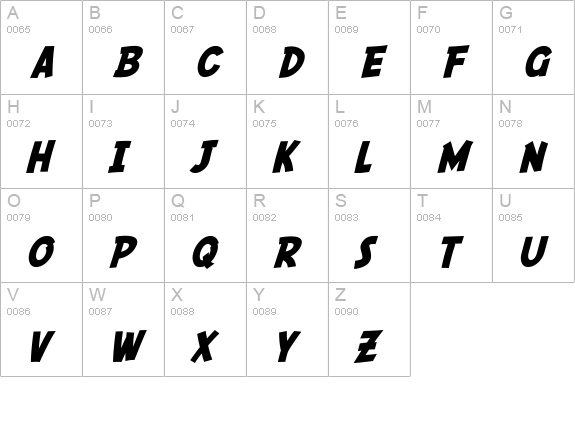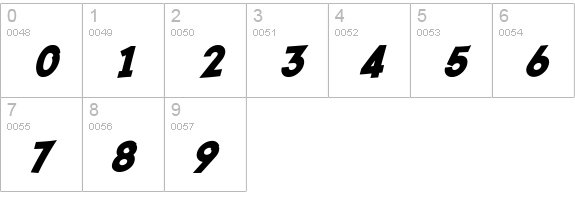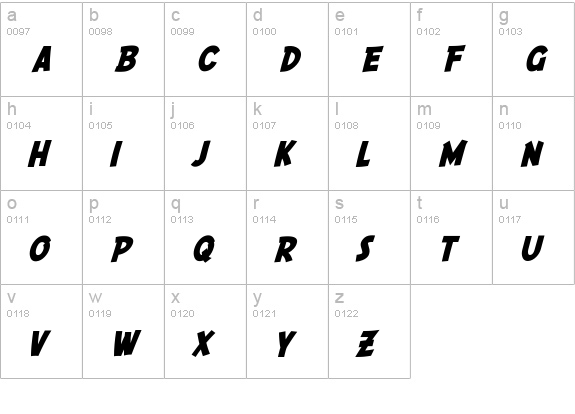
SF Comic Script Bold Font Details
SF Comic Script Bold is a strong, high-contrast variant in the SF typeface family \xE2\x80\x94 well suited to headlines, attention-grabbing titles, and strong calls-to-action.
Introducing SF Comic Script Bold, a vibrant and dynamic font that brings life and excitement to your comic creations! Designed with attention to detail, this font is perfect for adding impact and personality to your comic book dialogues, titles, captions, and more. With its bold and playful letterforms, SF Comic Script Bold captures the essence of classic comic book typography while adding a modern twist. Each character is carefully crafted to ensure legibility and readability, allowing your words to jump off the page and engage readers. Whether you're a professional comic artist or a hobbyist, SF Comic Script Bold is a must-have addition to your font collection. Its versatility makes it suitable for a wide range of comic styles, from action-packed superheroes to whimsical cartoons. Let your imagination run wild as you bring your characters to life with this expressive and captivating font. And the best part? SF Comic Script Bold is available for free! That's right, you can freely download this amazing font at FontsMarket.com. Embrace the opportunity to enhance your comic creations without any cost, and let SF Comic Script Bold become your go-to font for all your comic lettering needs. Don't miss out on this exciting and bold font that will elevate your comics to new heights. Download SF Comic Script Bold today and unleash the power of creativity in your storytelling.